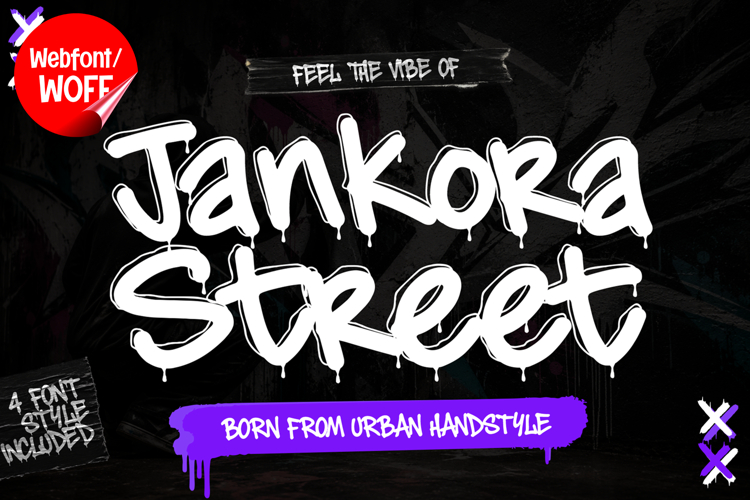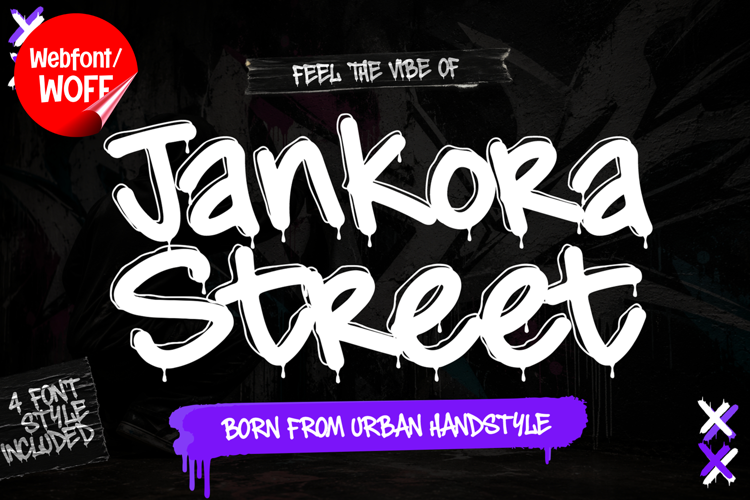
Jankora Street | Monoline Dripping Decorative Graffiti
Jankora Street is a monoline dripping decorative graffiti webfont designed to bring authentic street-art energy and expressive urban aesthetics into modern website design. Inspired by freestyle graffiti tags, spray-paint drips, and underground marker culture, this font features flowing monoline strokes combined with decorative dripping details that create a bold and eye-catching visual identity. It is an excellent choice for projects that aim to deliver creative graffiti visuals with strong urban character and modern street-style appeal.
Jankora Street includes a complete set of uppercase characters designed with monoline dripping graffiti aesthetics. The letterforms feature smooth handwritten curves, energetic movement, and expressive drip effects that create an authentic street-art appearance inspired by wall murals and marker tagging culture. These characteristics make it ideal for headlines, banners, hero sections, promotional graphics, and featured content where strong urban visuals are needed.
In addition to letters, the font includes numbers and punctuation, allowing flexible usage across various parts of a website. It works well for streetwear branding, gaming websites, music platforms, hip hop projects, skateboarding graphics, and creative portfolios. Each character maintains a consistent decorative graffiti style, ensuring a cohesive and unified visual identity throughout the design.
With multilingual support, Jankora Street includes a wide range of accented characters, making it suitable for international websites and global audiences. This ensures content remains clear and visually consistent across different languages while preserving the expressive and decorative graffiti aesthetic.
The monoline dripping decorative graffiti style of Jankora Street makes it especially suitable for urban-themed websites, entertainment campaigns, youth-oriented branding, and creative digital projects. Its flowing structure and dripping details create a powerful street-art atmosphere that helps websites stand out in visually competitive environments. The graffiti-inspired forms add movement, intensity, and authentic underground character while maintaining a smooth and stylish appearance.
Despite its decorative and expressive appearance, Jankora Street is designed with readability in mind. The spacing and proportions are carefully balanced to ensure clarity, particularly in display sizes. This allows designers to use the font effectively for impactful headings and short content without sacrificing usability.
Jankora Street is a webfont that combines monoline graffiti aesthetics with dripping decorative styling and modern digital performance. Its smooth strokes, expressive drip details, and urban character create a distinctive typographic presence that enhances website design. For projects that require a stylish, edgy, and visually engaging graffiti font, Jankora Street offers a versatile and powerful solution.